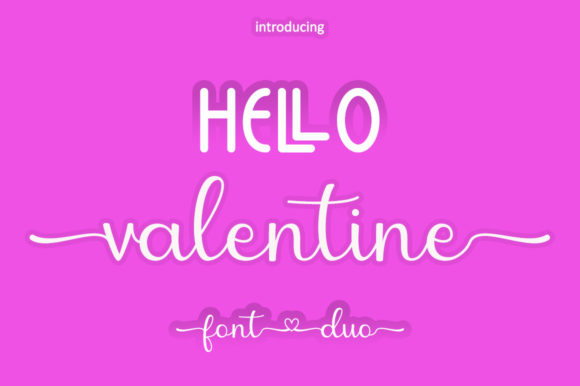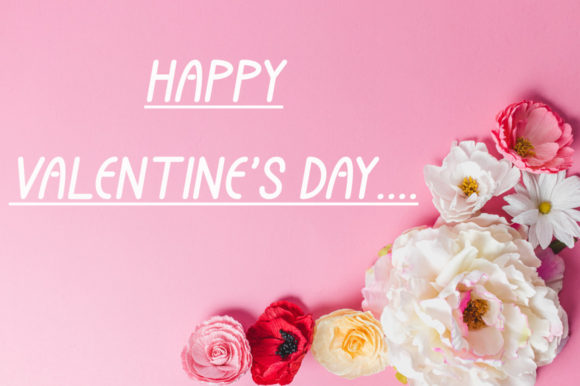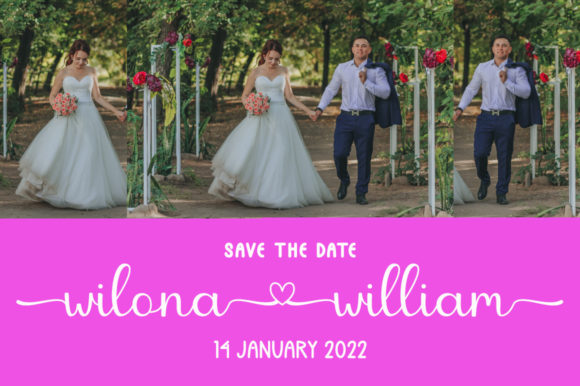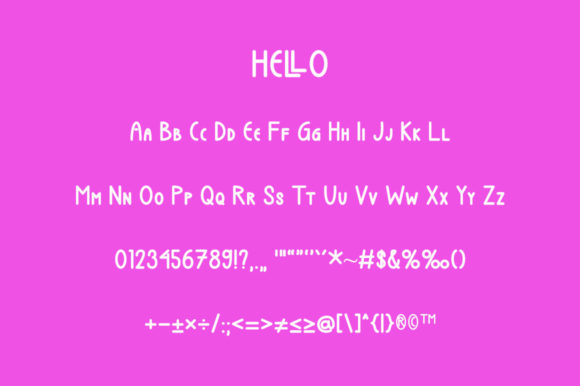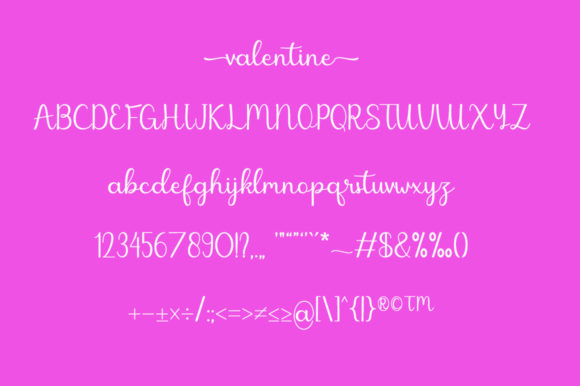
Hello Valentine Font
About Hello Valentine Font
Hello Valentine is a romantic and beautiful duo font (script and sans serif). These two fonts are great for various designs such as wedding invitations, Valentine’s Day greetings, birthdays, love anniversary anniversaries, words of encouragement and others. Hello Valentine is PUA encoded which means you can access all of the glyphs and swashes with ease!